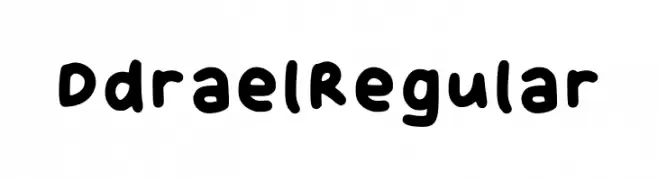
A playful, bold font with exaggerated curves and a whimsical style.
A bold, distressed font with a vintage, rugged appearance.
A playful, hand-drawn marker-style font with rounded, irregular characters.
A bold, hand-cut style font with a rugged, artistic appearance.
Hand-drawn pictogram font with baby and family themes.
A playful dingbat font featuring hand-drawn illustrations and icons.
A playful, hand-drawn font with thin, elongated strokes and a whimsical style.
Bold, dynamic font with a slight slant and strong presence.
A bold, slanted uppercase font with a modern and dynamic style.